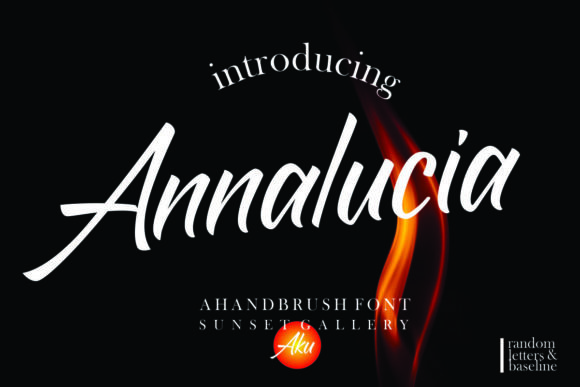
Unleash the Artistic Potential with Annalucia Font
Have you ever stared at a blank canvas, trying to bring your creative vision to life? The blank page can be intimidating, but the right tools can make all the difference. For designers and artists, finding the perfect font can be the key to unlocking their full potential. That’s where Annalucia Font comes in – a classic script font designed to make your ideas even more realistic and create spectacular designs.
This beautiful font is more than just a visual element; it’s a powerful tool that can elevate your work and make it stand out. With Annalucia Font, you can add a touch of elegance and sophistication to your designs, making them truly unforgettable. Whether you’re working on a branding project, creating a wedding invitation, or designing a book cover, this font is sure to make your work shine.
- Font Family: Annalucia, a high-quality, elegant script font.
- Unique Characteristics: Features a classic, handwritten look with a touch of elegance, making it suitable for invitations, wedding stationery, and other special occasions.
Annalucia Font Review
As a designer, I was excited to dive into the Annalucia Font. Upon initial inspection, I noticed that the font has a ✨ beautiful, elegant feel to it, reminiscent of classic script fonts. The flowing connections between letters make it perfect for use in invitations, signage, and other creative projects.
One of the standout features of Annalucia is its ✨ wide range of OpenType features, including ligatures, swashes, and ornaments. These additional elements add a touch of sophistication and whimsy to any design.
Overall, I’d say Annalucia is a solid choice for designers looking for a elegant, high-end feel. While it may not be the most versatile font, its unique features and beautiful design make it a great addition to any designer’s toolkit.